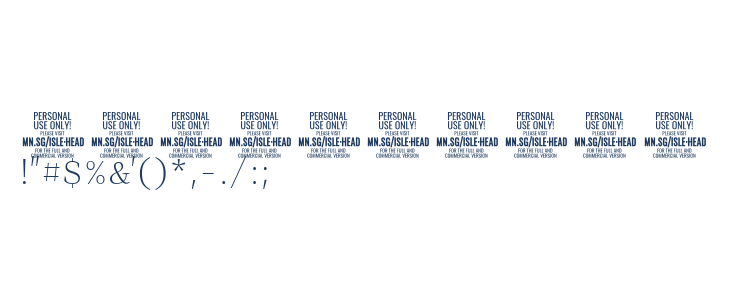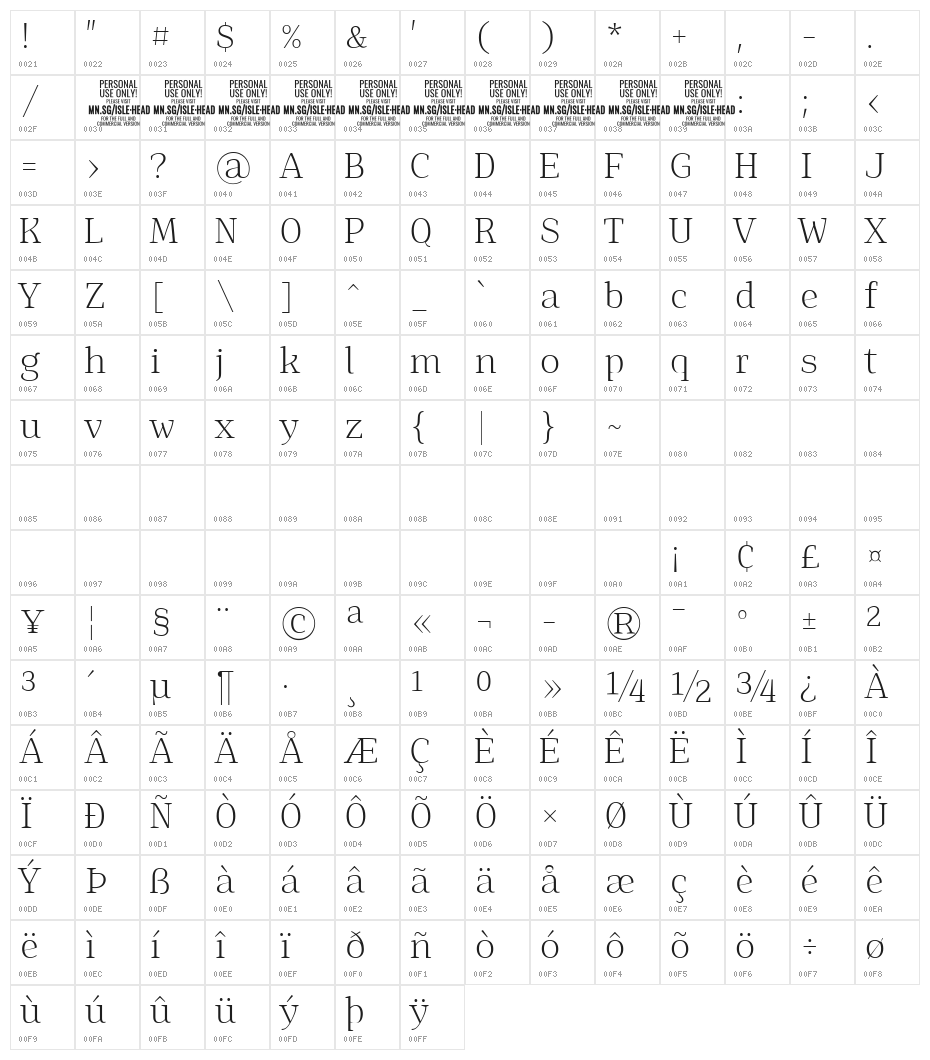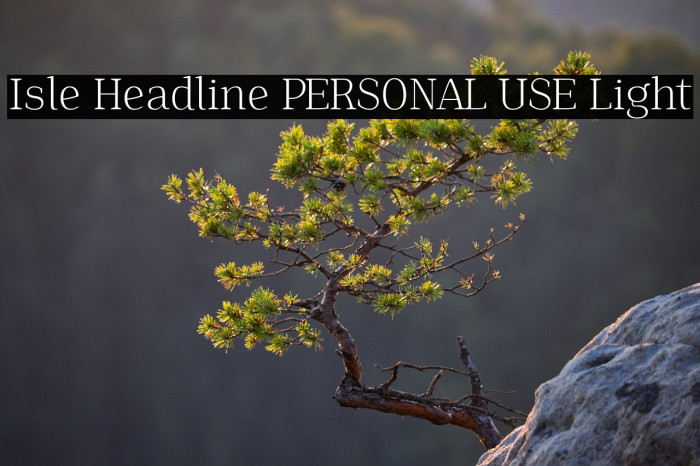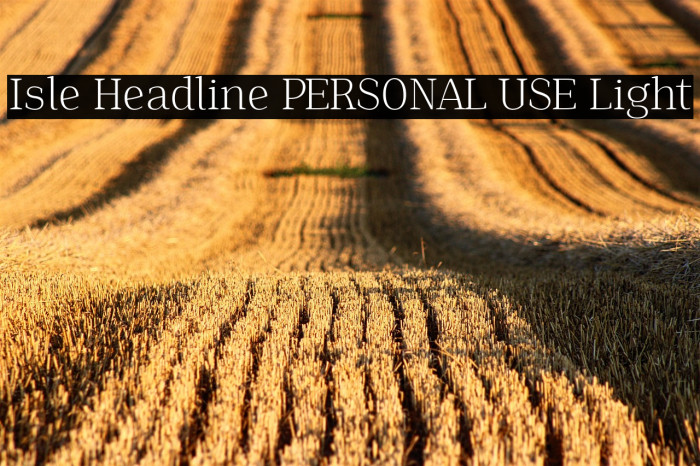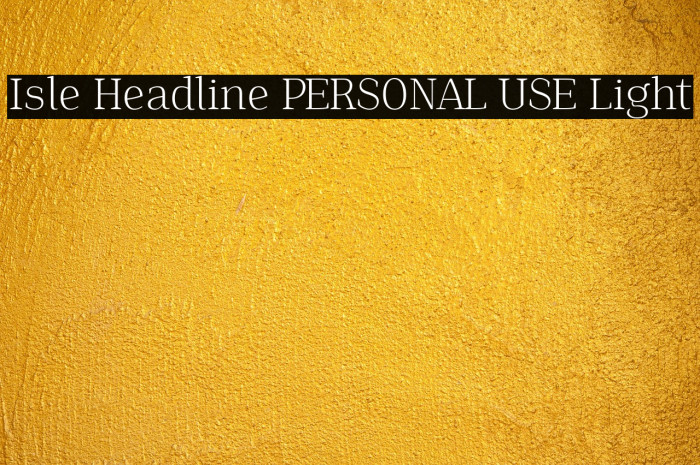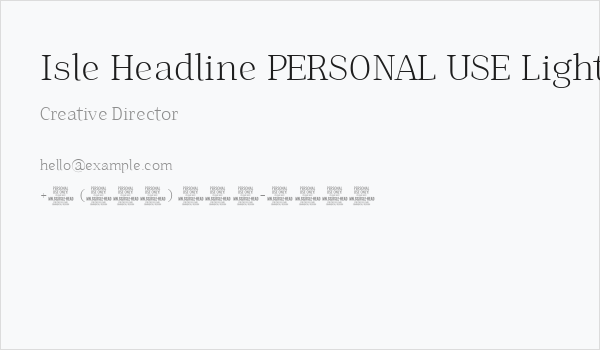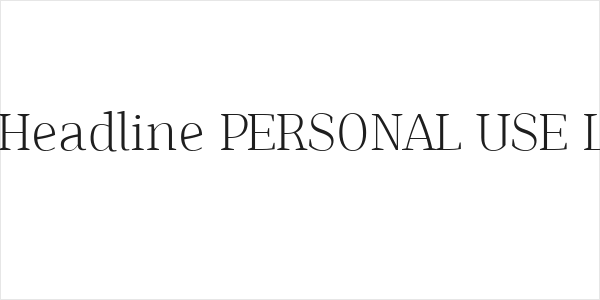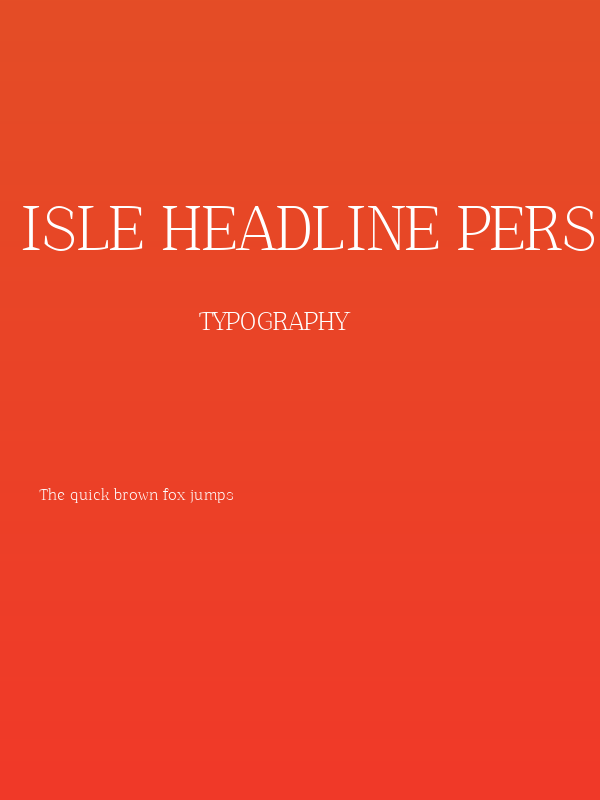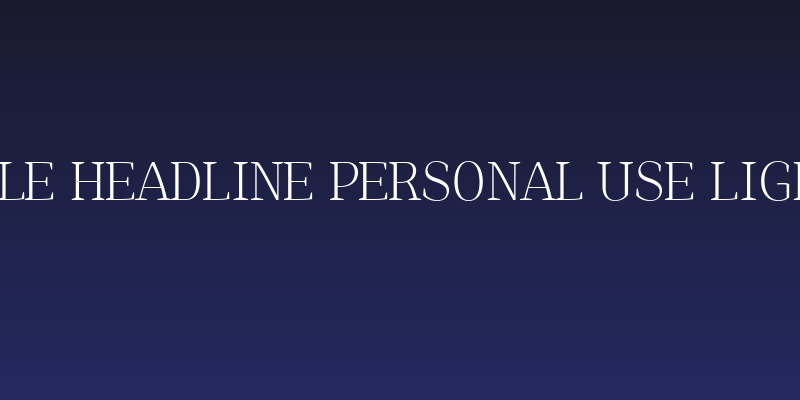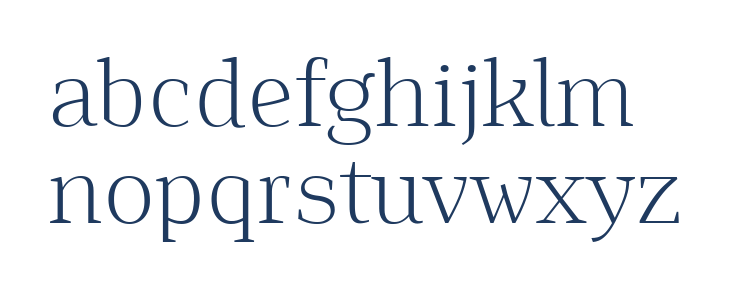
Isle Headline PERSONAL USE Light Font
Isle Headline PERSONAL USE Light Description
This font features a refined and elegant serif style, characterized by its thin strokes and high contrast between thick and thin lines. The uppercase letters exhibit a classic and sophisticated appearance, while the lowercase letters maintain a consistent and harmonious flow. The numerals are designed with clarity and precision, making them easily readable. Special characters are well-integrated, maintaining the overall aesthetic of the font. This typeface exudes a timeless quality, suitable for a variety of design applications.
| Proposed Projects | Ideal for editorial design, luxury branding, wedding invitations, and high-end product packaging. |